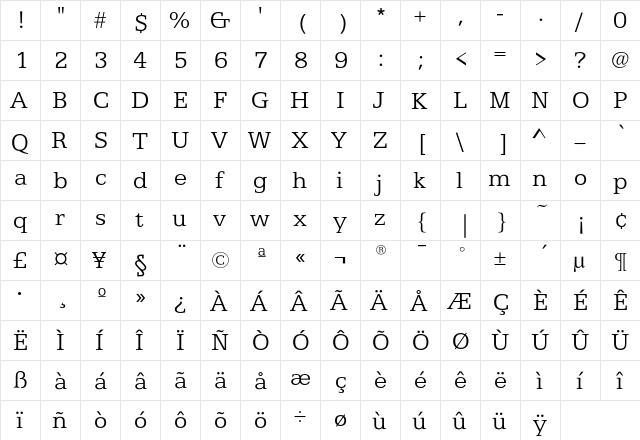
Egyptian505EF Light
Design Context for Egyptian505EF Typeface
Egyptian505EF combines the readability of serif typography with the visual weight of a slab construction, resulting in a typeface that feels both authoritative and approachable. The delicate stroke weight brings airiness and refinement to layouts.
Suited to magazines, political campaign materials, bold packaging, and any setting where authority matters.
Pro Tip: Use Egyptian505EF for headlines and subheadings where its slab serifs can make an impression. It also holds up well in mid-size body copy thanks to its sturdy construction.